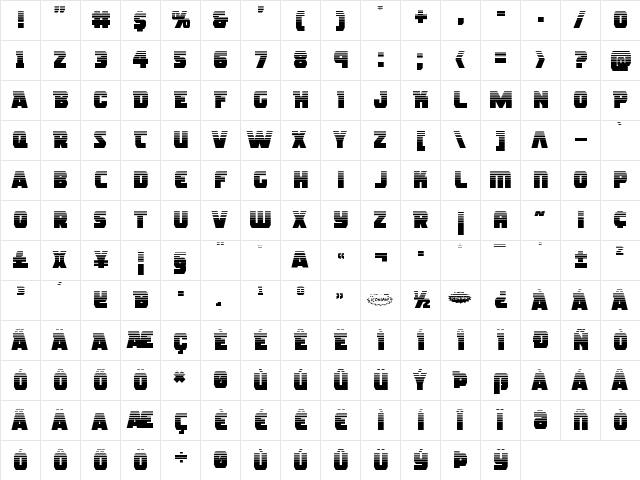
Rogue Hero Halftone Regular Font Preview
Rogue Hero Halftone Regular
Rogue Hero Halftone Regular Font Details
Design Context for Rogue Hero Halftone Typeface
Rogue Hero Halftone is a composed and adaptable typeface that performs quietly and consistently across a wide range of design contexts.